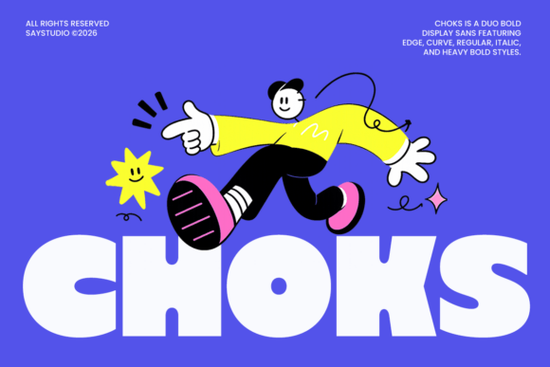
When it comes to making your designs stand out, the Choks Font is a fantastic choice. This bold and playful display sans serif font is designed to grab attention with its unique dual-style system, offering both Regular (Sharp Edge) and Rounded versions. Whether you're working on a vibrant poster or a creative social media post, Choks provides the flexibility and visual impact you need.
Choks is inspired by contemporary branding, street graphics, and modern editorial trends, making it a versatile and expressive font. Its chunky letterforms, soft curves, and strong geometric structure make it perfect for projects that demand attention. Whether you’re creating bold headlines, product packaging, or creative merchandise, Choks delivers a friendly yet powerful personality.
- Dual-Style System: Choks offers both Regular (Sharp Edge) and Rounded versions, giving you the flexibility to choose the right style for your project.
- Bold and Playful: The font's chunky letterforms and soft curves make it ideal for designs that need to be both eye-catching and approachable.
- Versatile Use Cases: From food brands and lifestyle products to creative agencies and startups, Choks can be used in a wide range of applications.
Choks is not just another font; it’s a tool that can transform your designs. For instance, if you’re working on a new logo for a children’s product, the playful and rounded version of Choks can add a touch of fun and friendliness. On the other hand, if you’re designing a modern advertising campaign, the sharp edge version can bring a bold and dynamic feel to your visuals.
- Logos and Branding: The bold and clean lines of Choks make it perfect for creating memorable logos. Its versatility allows you to maintain a consistent visual identity across different brand elements.
- Social Media Graphics: Use Choks to create engaging and vibrant social media posts. The font’s playful nature can help your content stand out in a crowded feed.
- Product Packaging: Whether you’re designing packaging for a food brand or a lifestyle product, Choks can add a fresh and expressive look that instantly grabs attention.
- Event Promotions: For event posters and promotional materials, Choks can bring a modern and energetic vibe, making your event more appealing and memorable.
- Experiment with Both Styles: Try using both the Regular (Sharp Edge) and Rounded versions of Choks to see which one works best for your project. Sometimes, a mix of both can add an interesting contrast.
- Balance with Simpler Fonts: While Choks is great for headlines and key text, pair it with simpler, more readable fonts for body text to ensure clarity and balance.
- Play with Colors and Textures: Use Choks with vibrant colors and textures to enhance its playful and energetic qualities. This can make your designs even more engaging and visually appealing.
- Experiment with both the Regular (Sharp Edge) and Rounded styles to find the best fit for your design.
- Pair Choks with simpler fonts for a balanced and professional look.
- Use vibrant colors and textures to enhance the playful and energetic qualities of the font.
- Apply Choks to various design projects, such as logos, social media graphics, and product packaging, to see its full potential.
While Choks stands out with its unique features, it’s always good to know how it compares with other popular display fonts. For example, Zombora Font has a more traditional and elegant feel, while Cowboy Zombie Font offers a rustic and rugged appearance. Pinky Pop Font is known for its whimsical and cursive style, and Lazy Daze Font brings a laid-back, casual vibe. Each of these fonts has its own strengths, but Choks excels in providing a bold, playful, and versatile option for a wide range of design needs.
With Choks, you have a versatile and expressive font that can help you create designs that truly stand out. Give it a try and see how it can transform your next project.